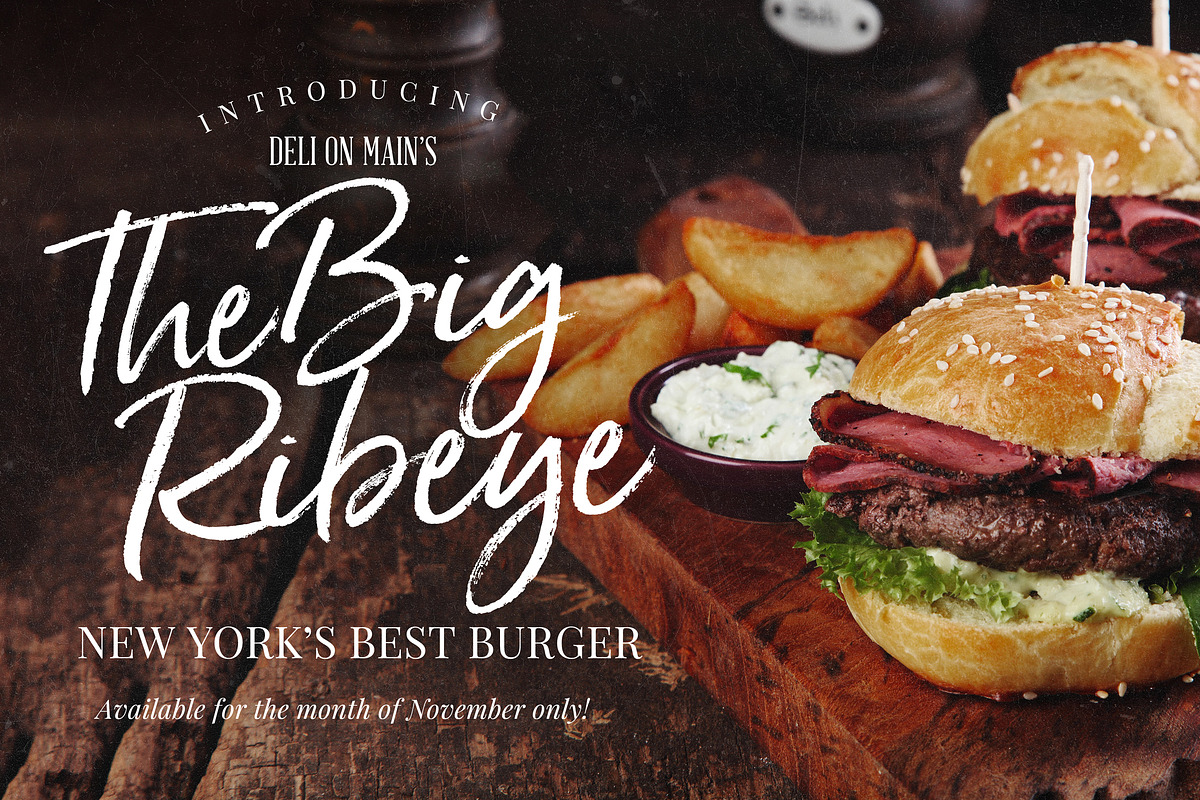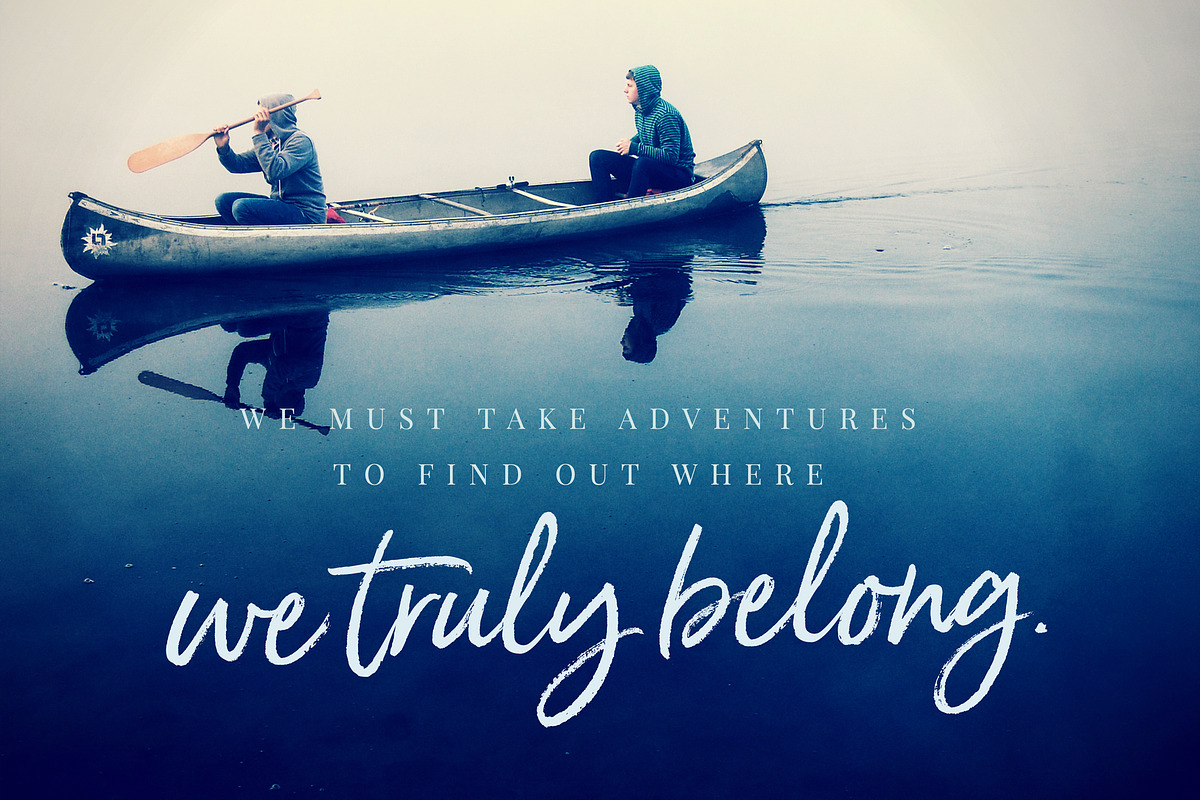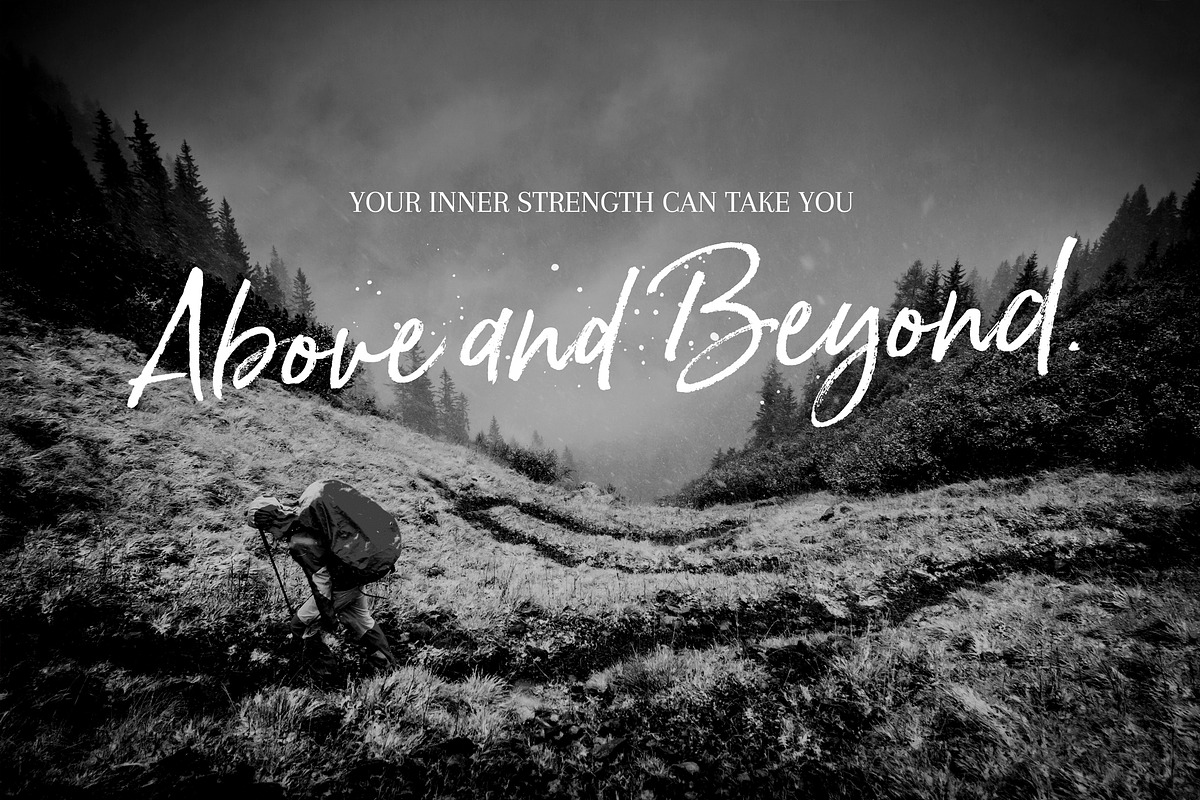
Born Ready is a dry marker handwritten font with textured lines and multiple personalities! Born Ready comes in various styles – Regular, Slanted, and Upright – each with it’s own unique personality to suit the look you are after. A handy set of alternate lowercase letters lets you get the perfect look you need for your design. For folks who have Opentype Capable software, an Opentype font version is available with all ligatures and all stylistic alternates included.